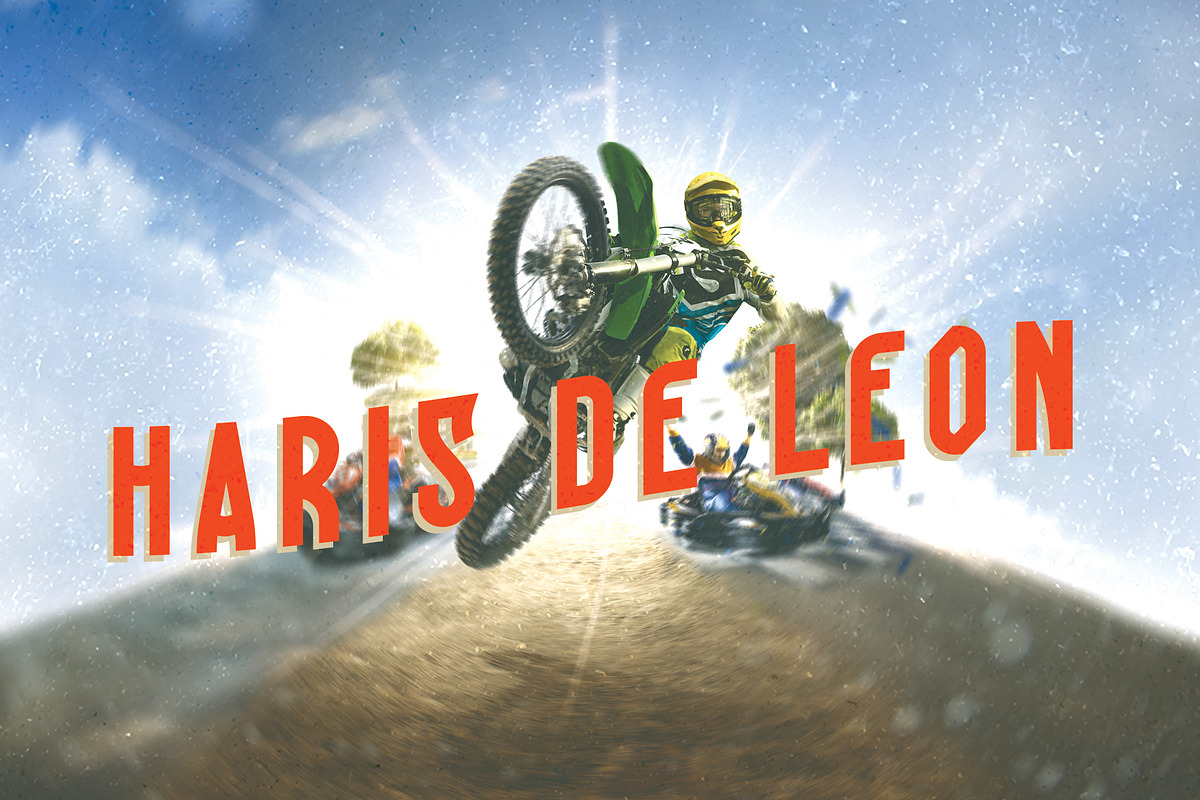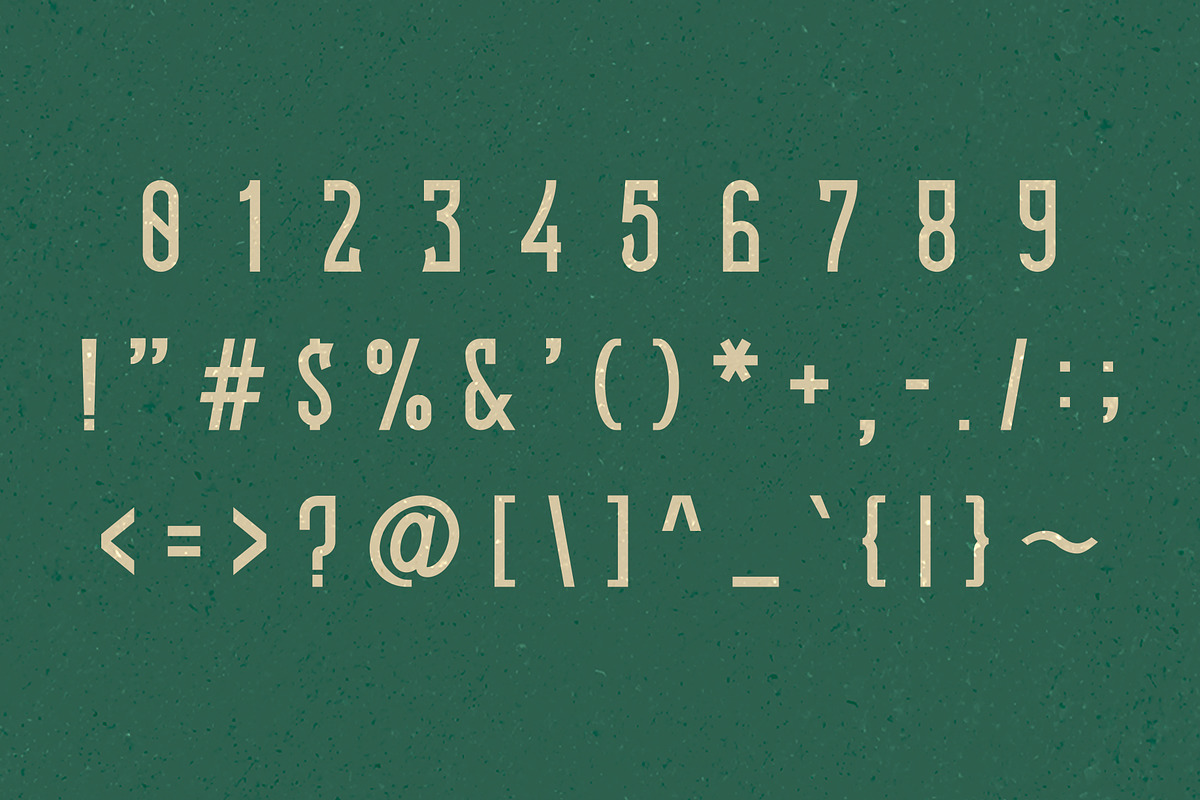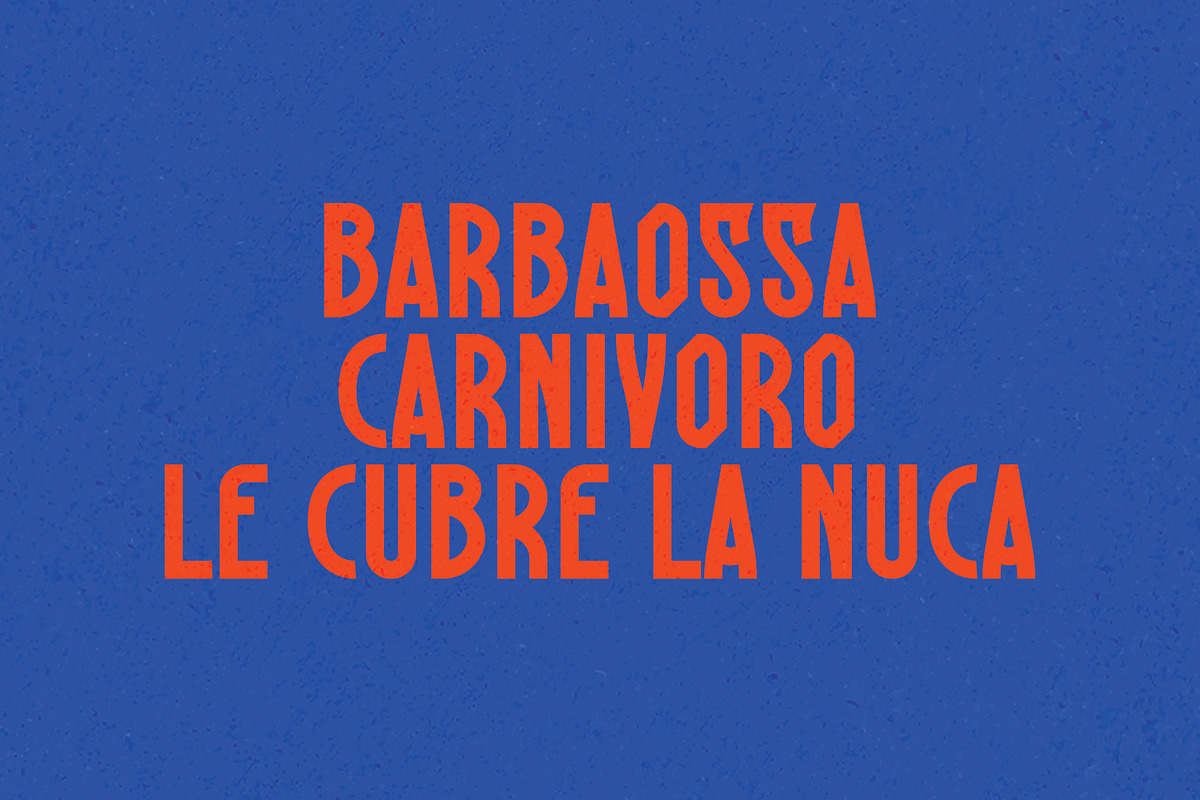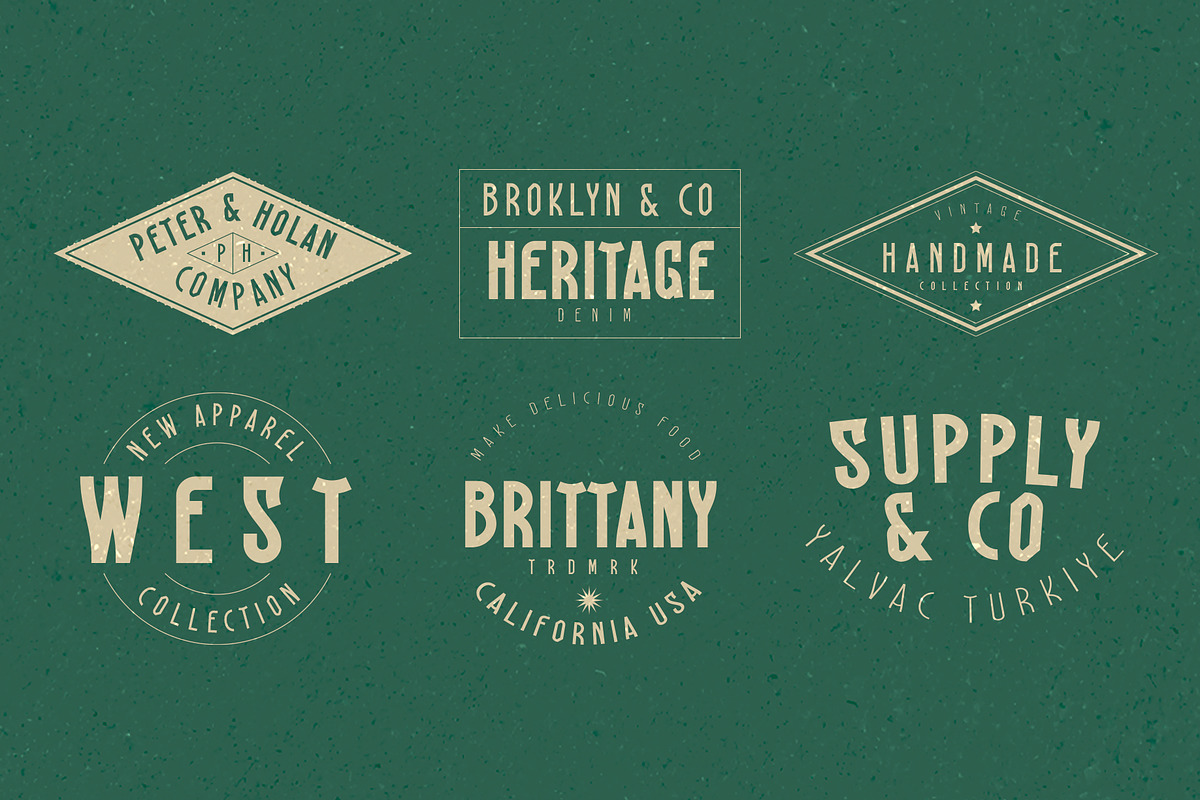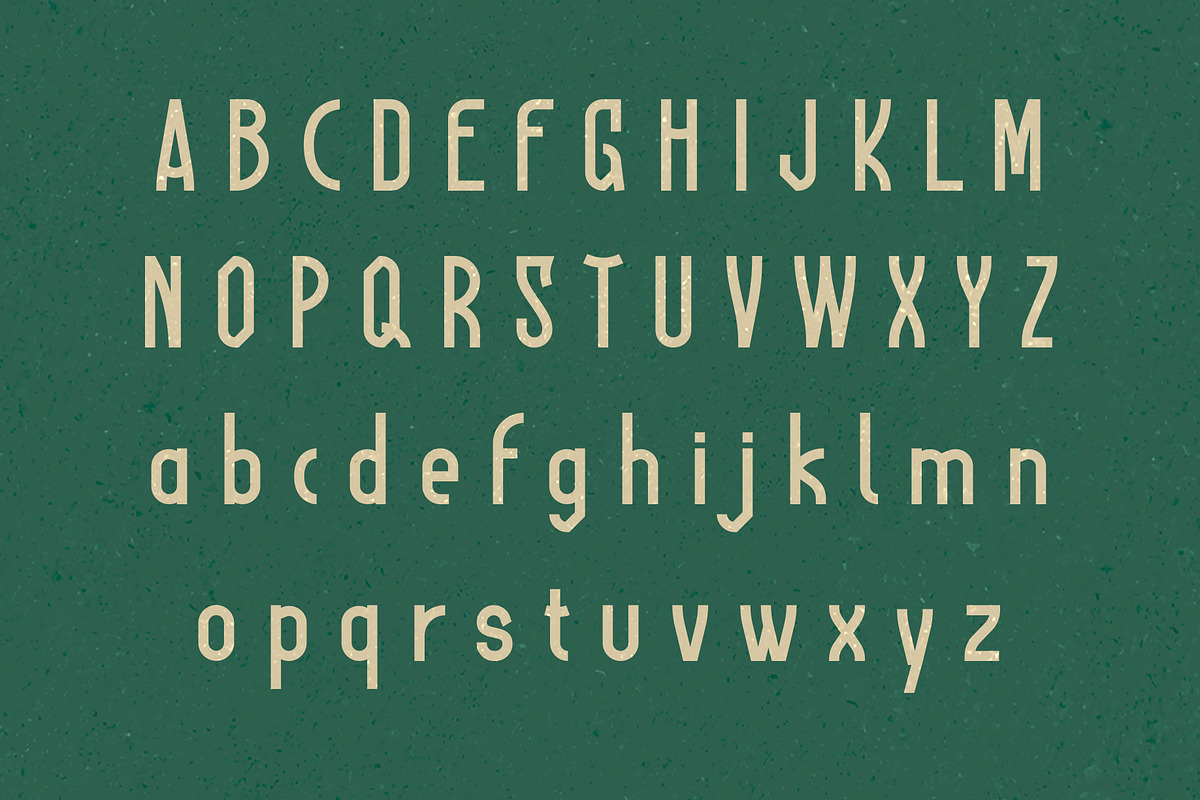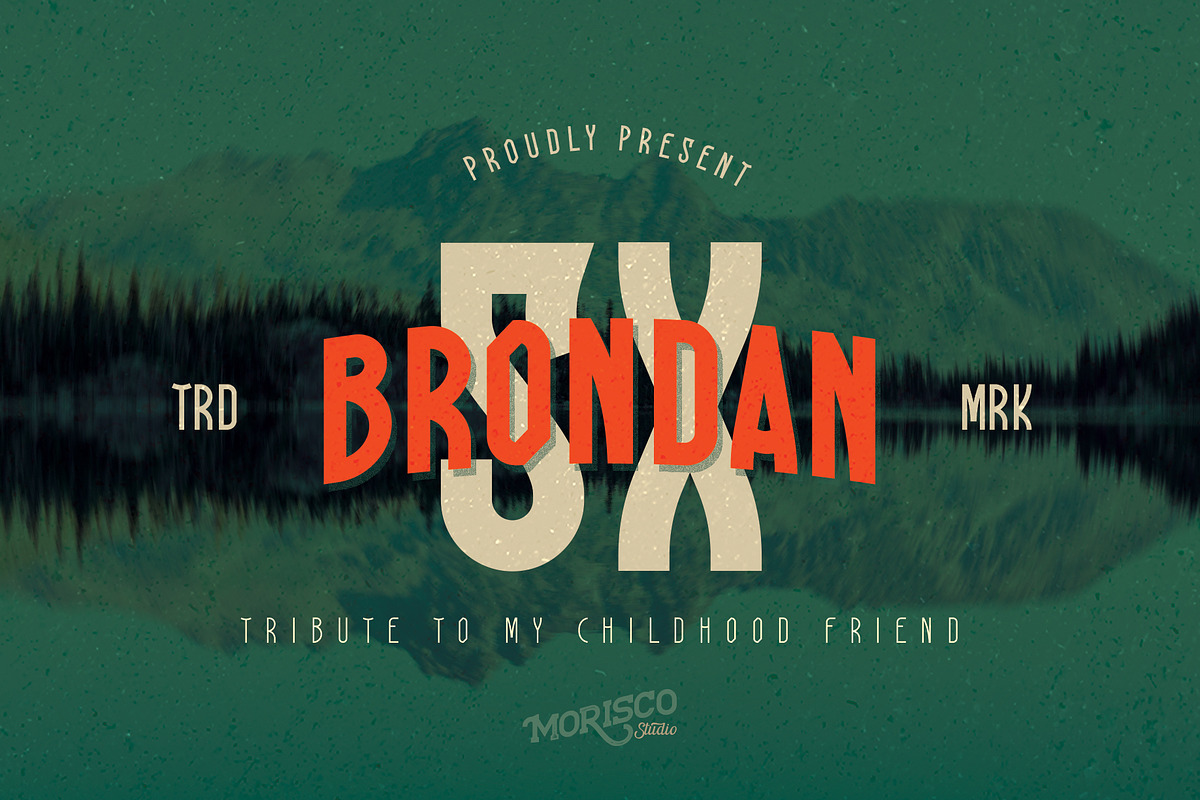
Brondan SX
Brondan SX Tribute to My Chilhood Friend is a elegant font with 3 style (light, regular, bold) designed by morisco studio. This font, well-suited for headline and any project, like branding, print template, logo and more. Lorena in Wesfalen support multilingual character and have open type features as ligatures.